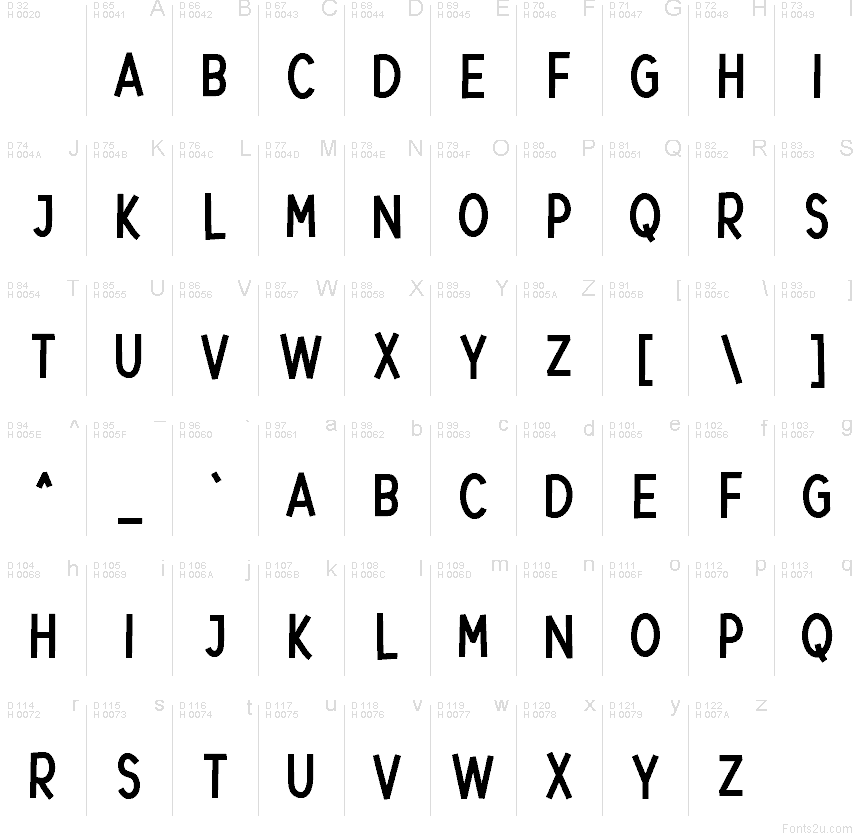
Natured
Natured font by HannaBie Creative Studio is a free comic display typeface that turns bold headlines into hand-drawn shouts. Tall, narrow letters with slightly rough, inky edges feel like they’ve been sketched with a chunky marker, giving your text a loose, energetic rhythm. It’s playful without being childish, so it still reads clearly even at a glance on busy layouts and colorful backgrounds.
Using Natured, this free font really shines on kids’ book covers, eco-themed posters, classroom materials, playful brand logos, social media graphics, and comics or zines. The condensed shapes help long titles fit in tight spaces while keeping their punch. Pair it with a clean, light sans serif for body copy, and let Natured handle the big, noisy words at larger sizes.